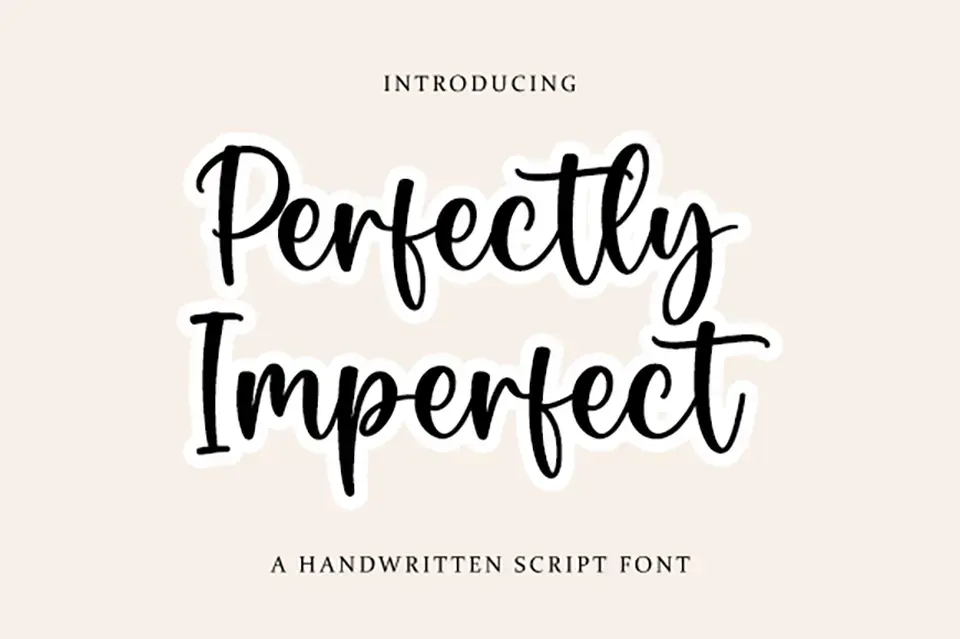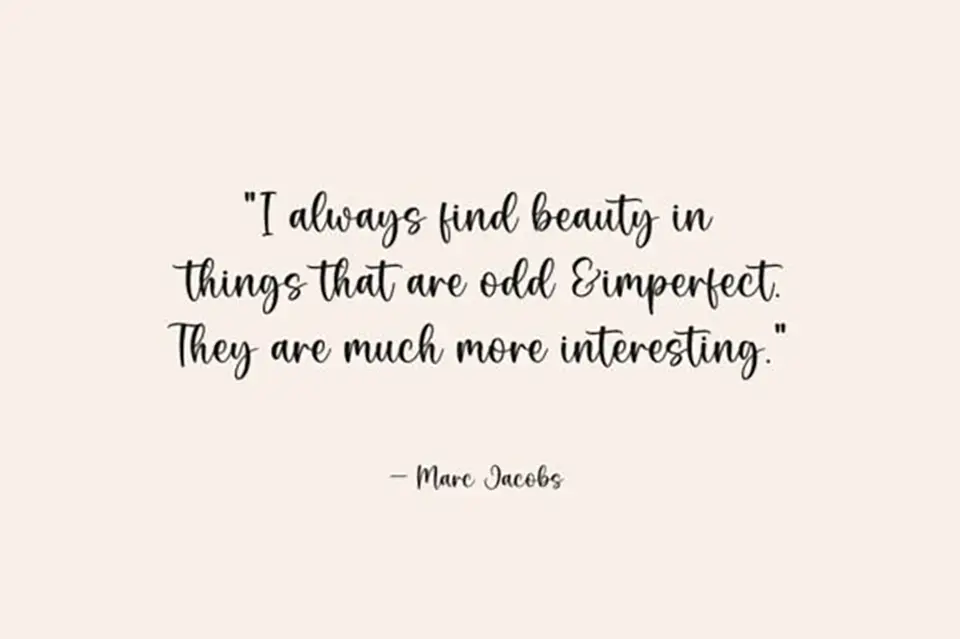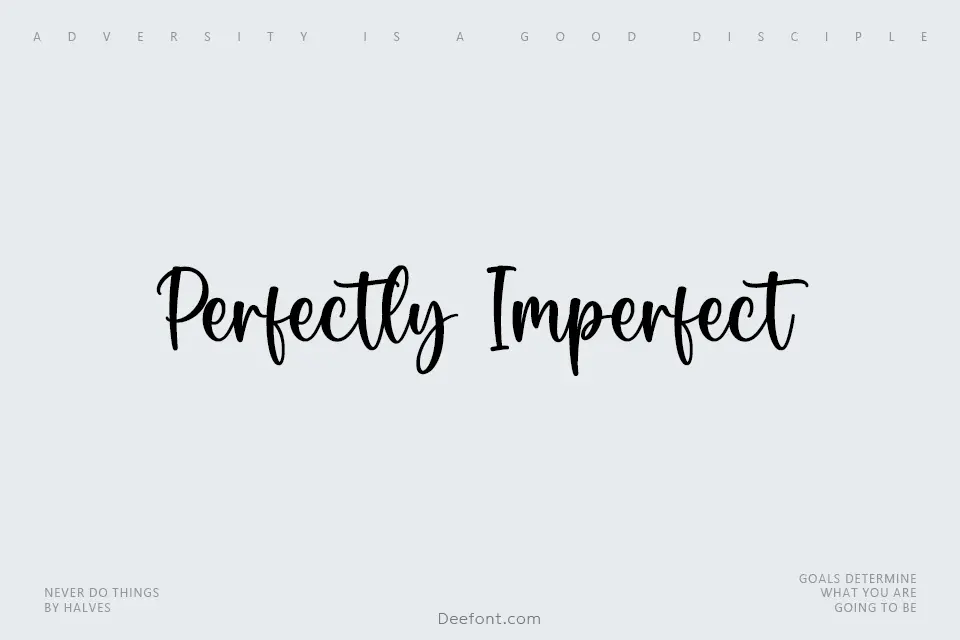
Perfectly Imperfect Script Font
Perfectly Imperfect is a graceful handwritten script font that captures the beauty of authentic penmanship with deliberate imperfections. Designed by Graphix Line Studio, this elegant typeface features flowing strokes and warm character that brings sophistication and personality to any design project. Its versatile style makes it ideal for wedding invitations, greeting cards, logo design, branding, packaging, social media graphics, posters, and merchandise. Whether crafting boutique identities or cozy café designs, Perfectly Imperfect adds warmth and individuality to creative work while maintaining professional elegance and visual appeal.